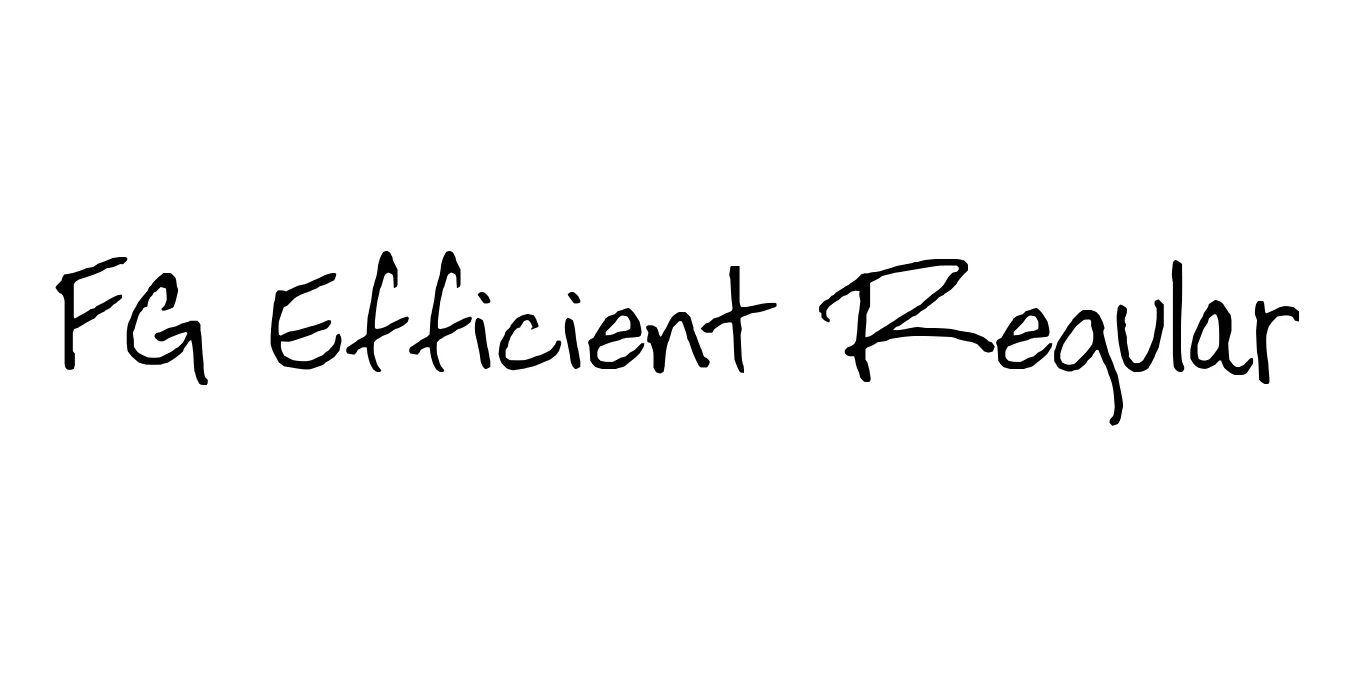
FG Efficient Regular
Designed by Ellie Huynh (FontGarden)
| Category | Handwritten |
| Designer | Ellie Huynh (FontGarden) |
| Similar Fonts | FG Rakel, FG Jasmine, Kristen ITC, Segoe Script |
FG Efficient Regular is a distinctively clean and legible handwritten font designed by Ellie Huynh of FontGarden. Known for its streamlined and "efficient" stroke style, this typeface bridges the gap between casual handwriting and professional clarity. It was created to offer a more organized alternative to chaotic script fonts, making it ideal for users who want a personal touch without sacrificing readability in longer blocks of text.
Since its release, the font has become a favorite for digital journaling and informal correspondence. Its consistent x-height and gentle slant provide a rhythmic flow that works well in both print and digital mediums. The FG Efficient family is widely recognized in the scrapbooking community and among designers looking for an approachable, humanistic aesthetic for creative projects that require a sense of authenticity.
FG Efficient Regular Best Uses
Perfect for adding a personal handwritten touch to digital memory books and albums.
Ideal for quotes and stories where a human, approachable voice is needed.
Excellent for invitations, thank you notes, and custom greeting cards.
Works well for subheaders or side-notes on lifestyle and personal blogs.